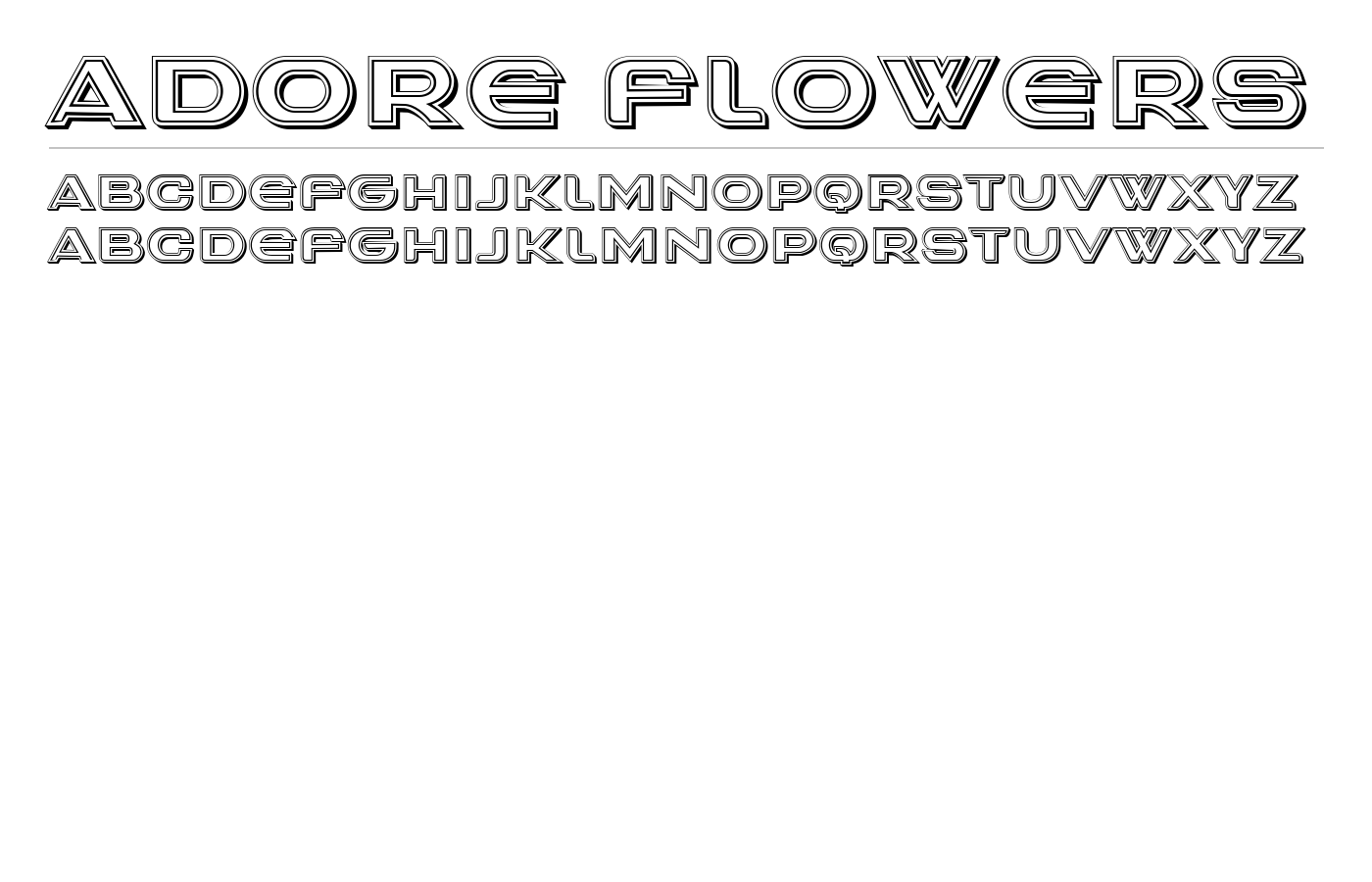
Adore Flowers is a bold, uppercase sans serif font with a distinctive layered outline effect that creates a playful, three-dimensional look. Its geometric shapes and clean lines convey a modern yet decorative style, making it ideal for eye-catching headlines, logos, and creative branding that seeks a fun and energetic vibe. This font works well in designs where a strong visual impact and a touch of whimsy are desired.
Adore Flowers Font
About Adore Flowers Font
| Font family | Adore Flowers Font |